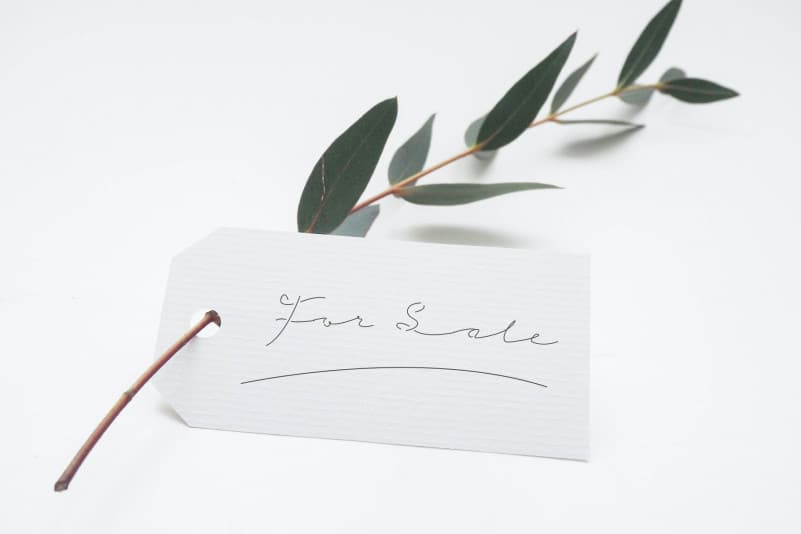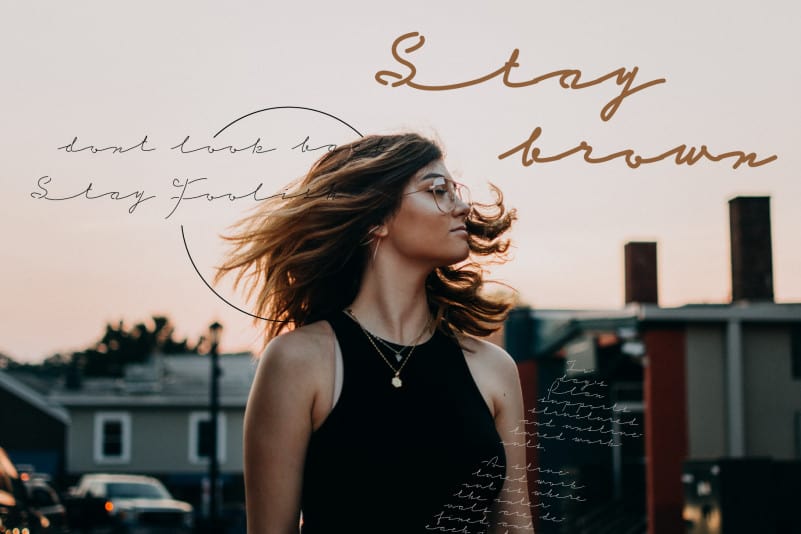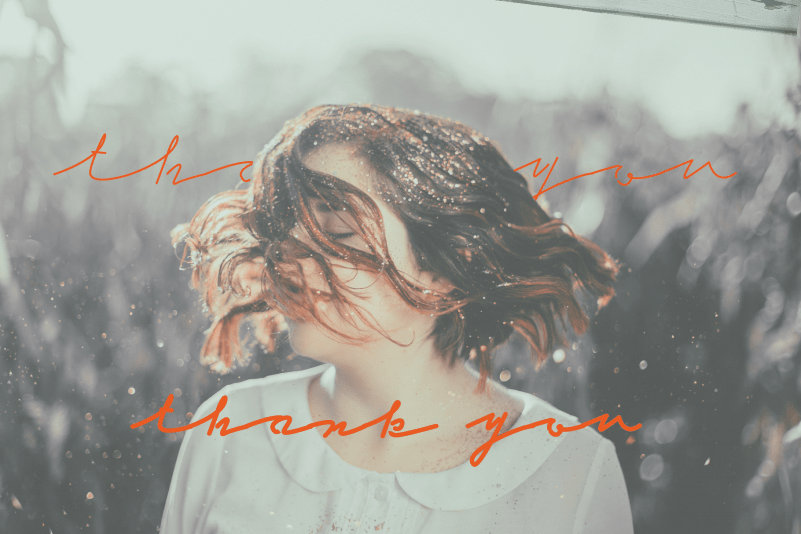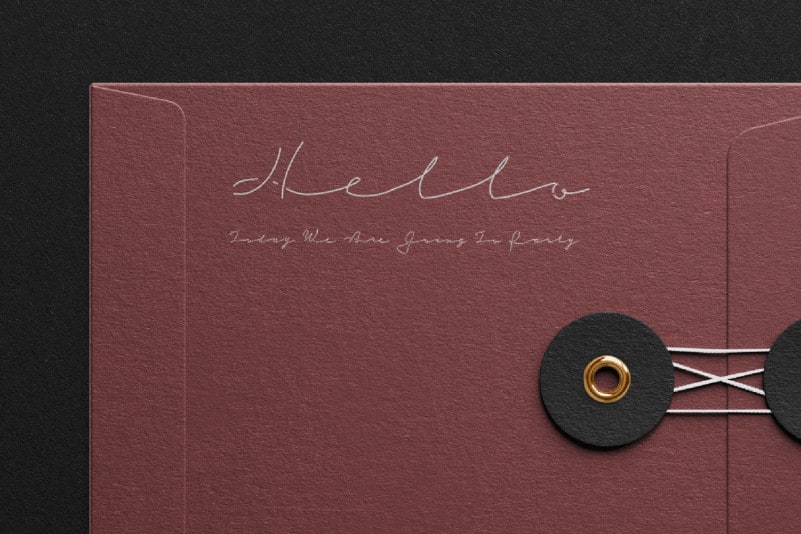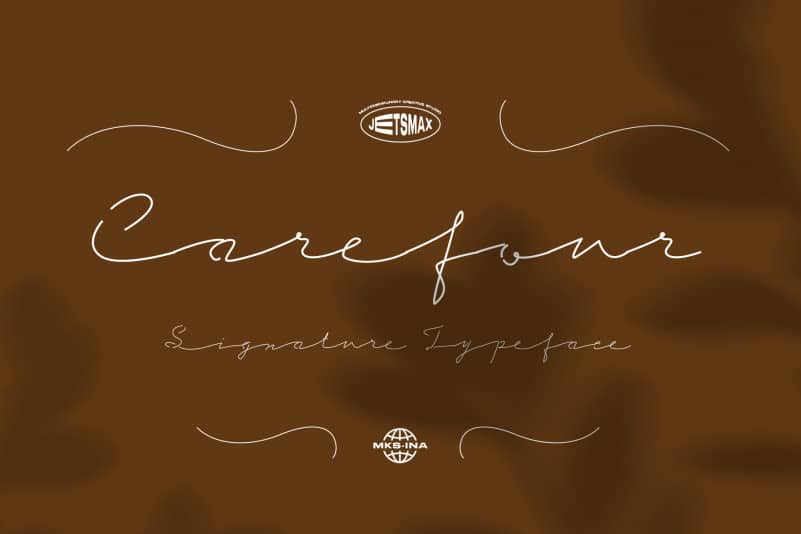
Carefour Signature Font is a whimsical handwritten typeface, that will make any project stand out! With its neat arrangement of letters, this typeface will look incredibly beautiful in both formal and non-formal designs.
Carefour Signature Font gives a gorgeous feel to a variety of branding projects, logos, wedding designs, social media posts, advertisements, and so much more. Let your imagination run free!
- Ligature & Unique